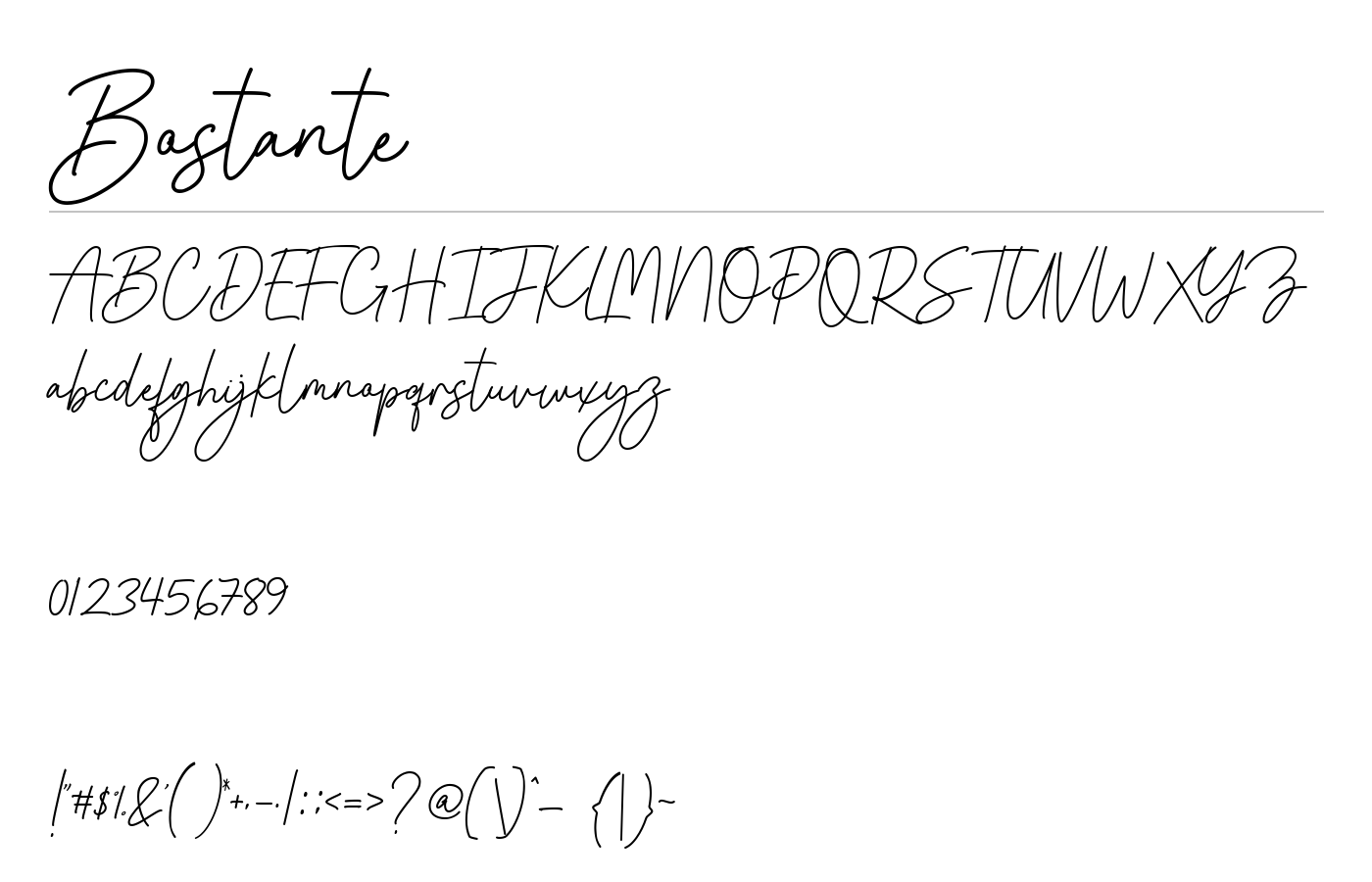
Bostante is a delicate, handwritten script font featuring slender, elegant strokes with a natural, flowing style that feels personal and graceful. Its tall, slightly condensed letterforms and subtle variations in line thickness convey a modern, approachable charm ideal for invitations, branding, and creative projects seeking a refined yet casual look. This font shines in contexts where a touch of warmth and individuality is desired without sacrificing readability.
Bostante Font
About Bostante Font